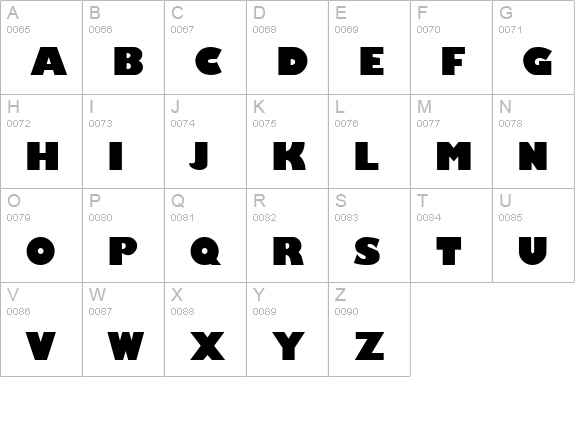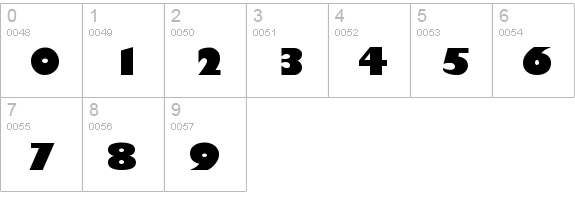
Giligan Black Font Details
Giligan Black is a maximum-weight, dramatic variant in the Giligan typeface family \xE2\x80\x94 well suited to maximum-impact headlines, posters, and packaging.
Introducing Giligan Black font - a bold and distinctive typeface that exudes a sense of modern sophistication and timeless elegance. With its strong lines and sleek curves, this font is perfect for making a statement in your design projects. What makes Giligan Black font even more appealing is that it is available for free download at FontsMarket.com. This means you can easily access this stylish font and incorporate it into your creative works without any cost. Whether you're designing a logo, poster, invitation, or any other project, Giligan Black font will surely add a touch of class and flair. Don't miss out on this opportunity to elevate your designs with the captivating Giligan Black font. Download it for free today and let your creativity shine!